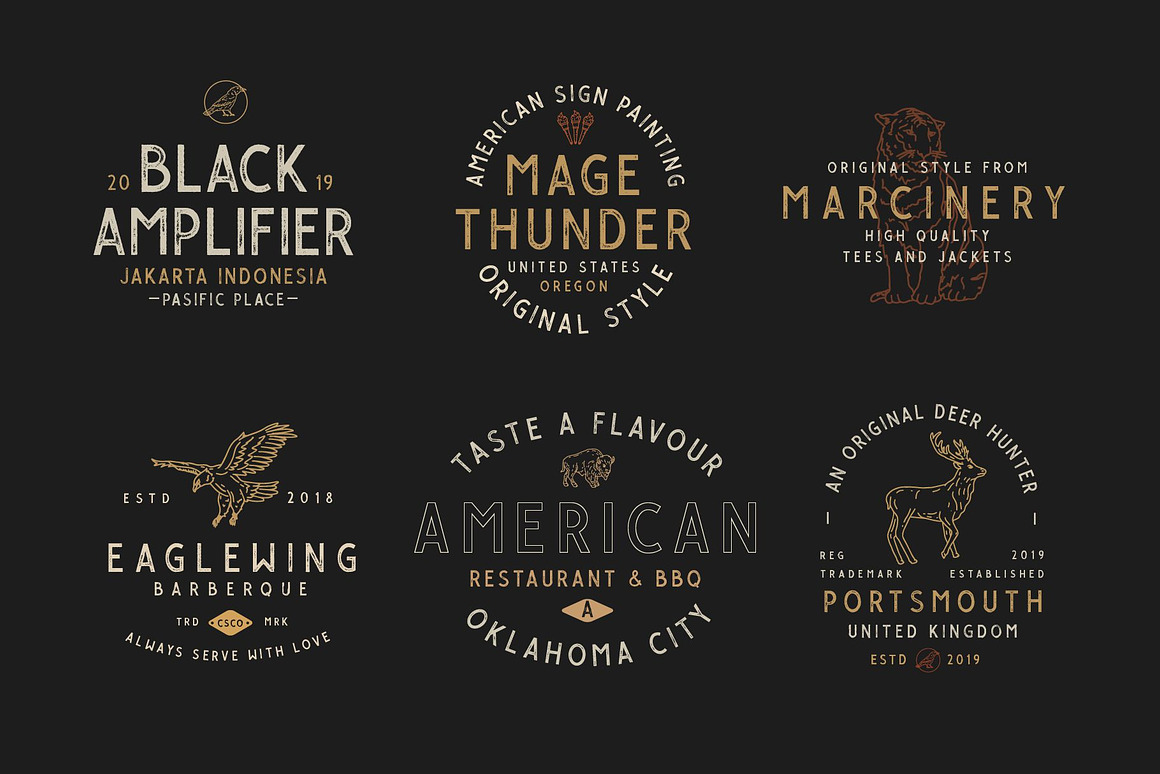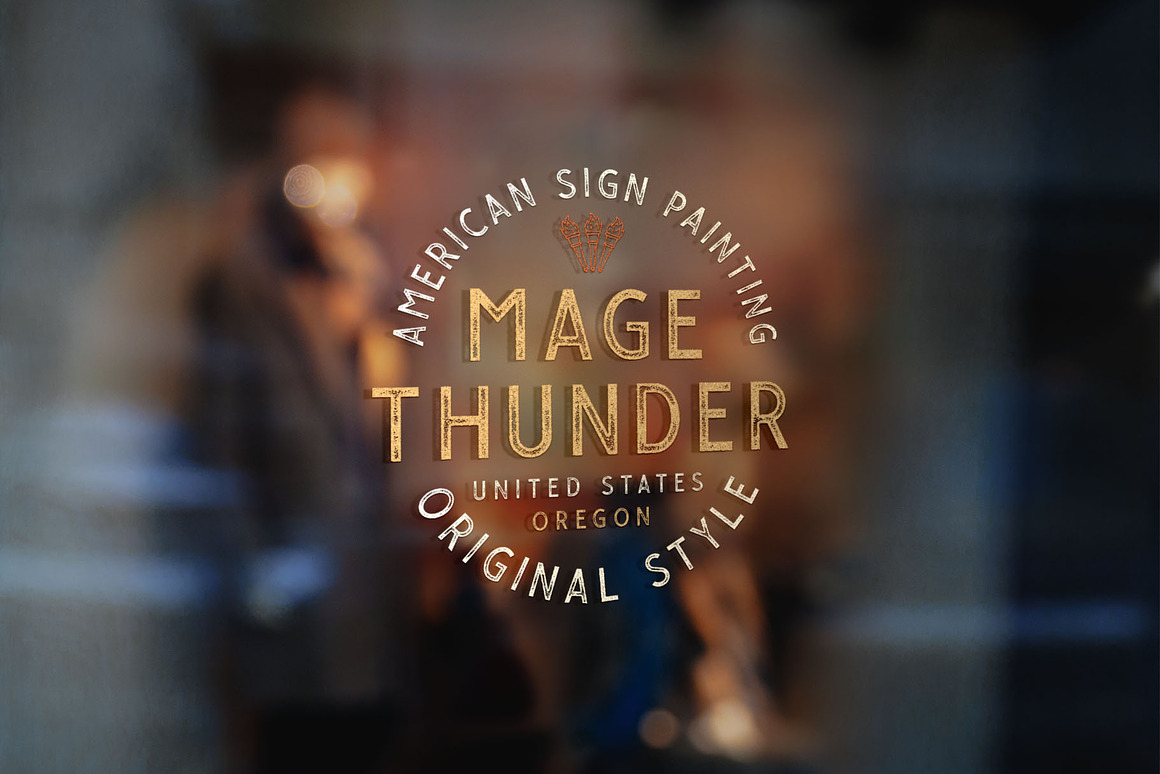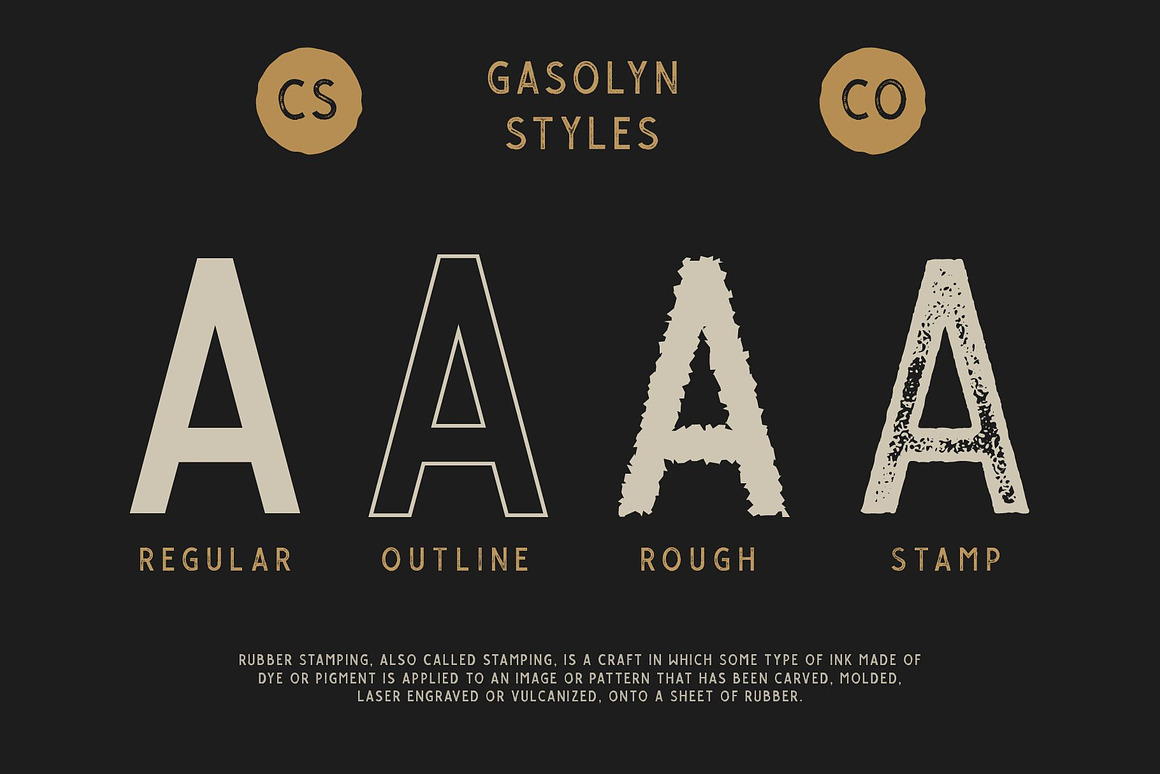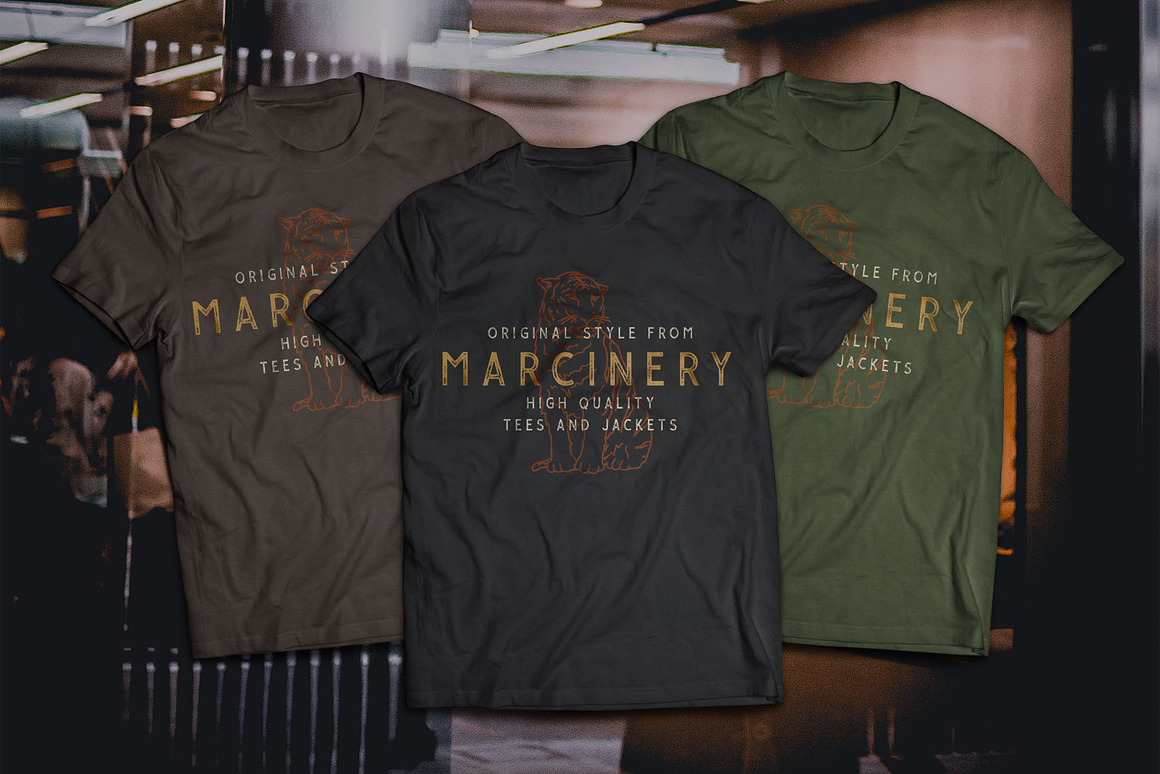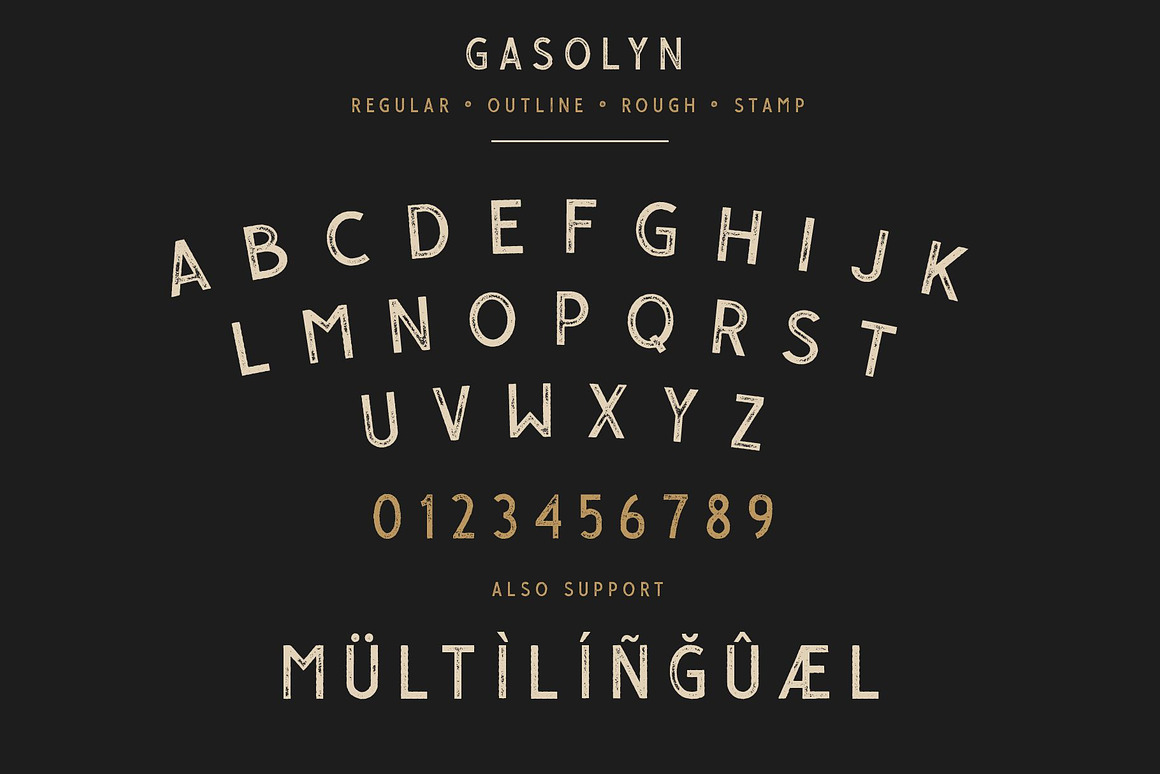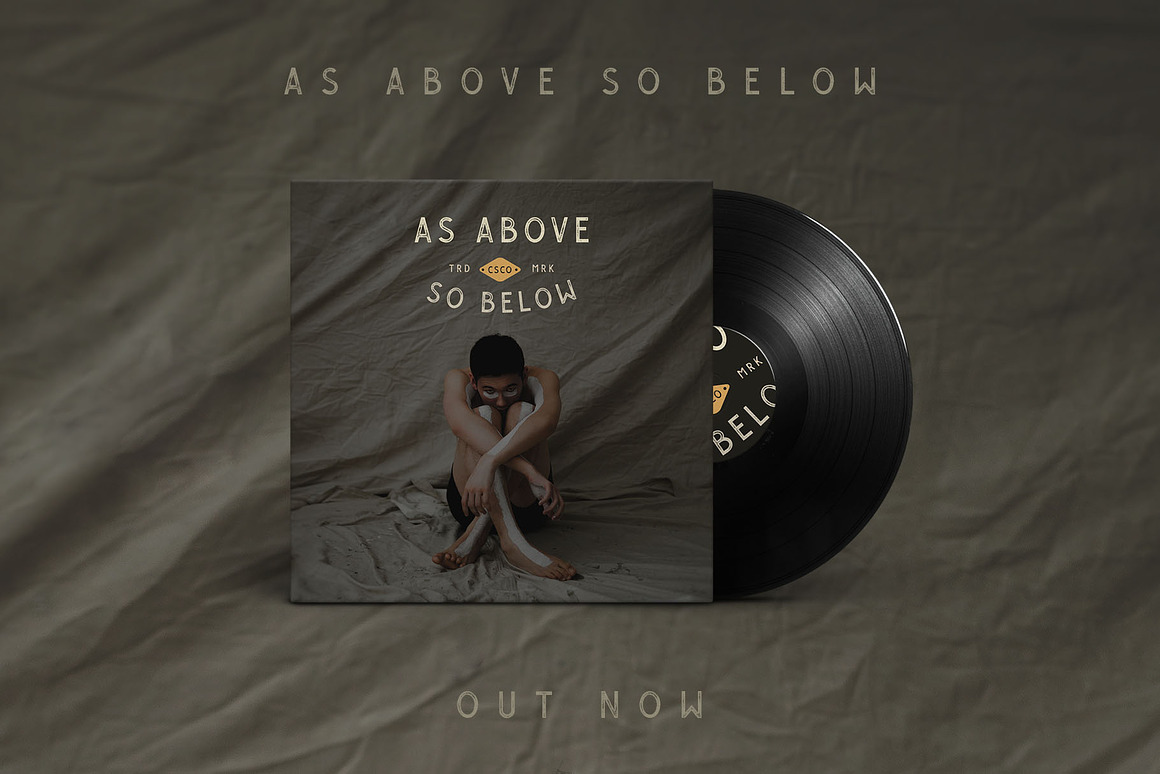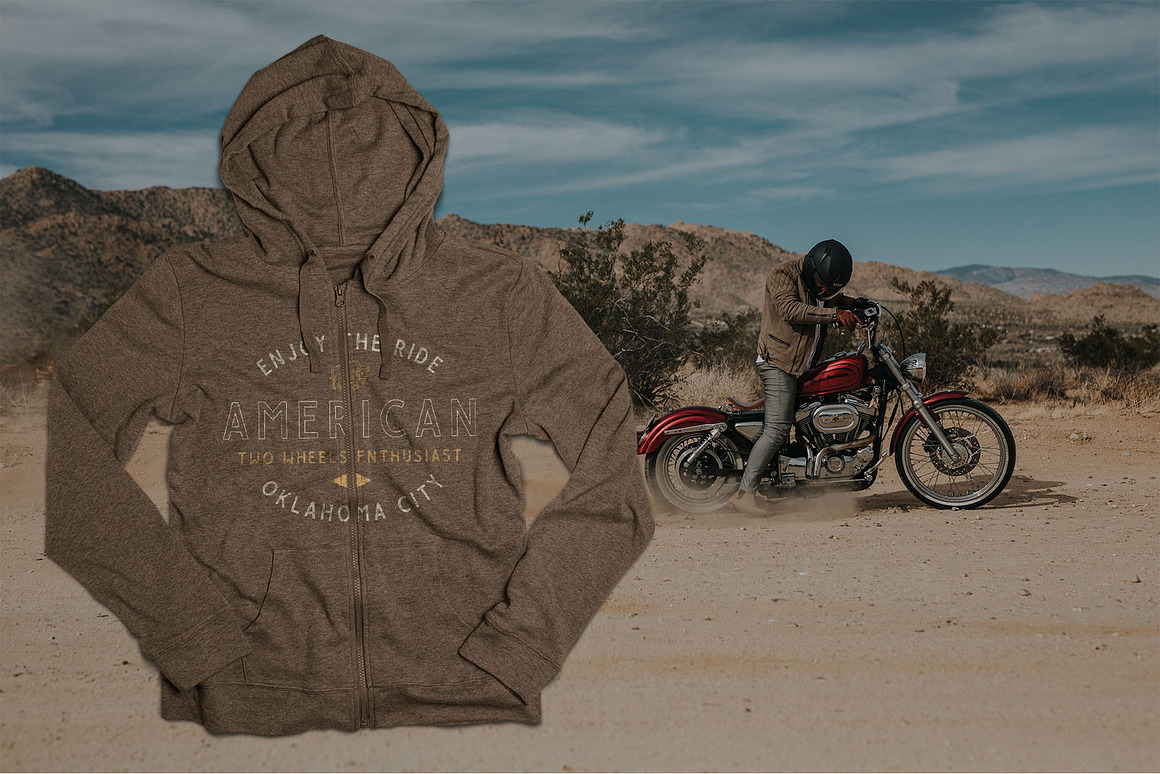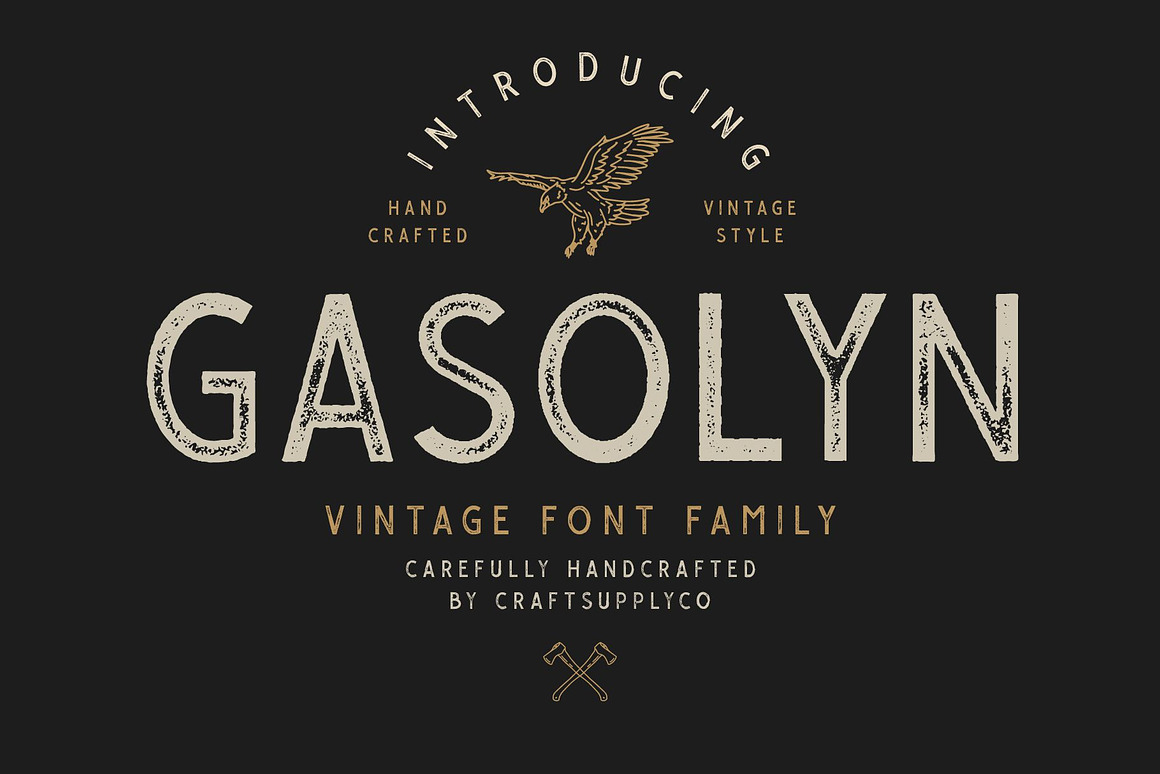
Gasolyn Font Family + Extras
Introducing Gasolyn Font Family + Extras includes 4 Style Fonts. It can be used to create almost all types of design projects like print materials. Just use your imagination and some graphic design set in Extras, your project will become more alive and look great than ever with one of the Gasolyn Font. You want to make a greeting card or a package design, or even a brand identity, craft design, any DIY project, book title, wedding font, pop vintage design, retro design or any purpose to make your art / design project look pretty and trendy? Feel free to play with all style of this font! What you get : Gasolyn Regular Gasolyn Outline Gasolyn Rough Gasolyn Stamp Extra Badges